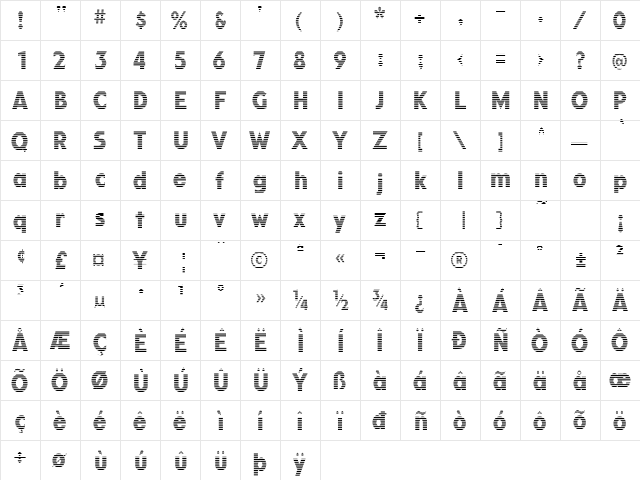
KolkmanGray Regular Font Preview
KolkmanGray Regular
Design Context for KolkmanGray Typeface
KolkmanGray offers clean, dependable letterforms without strong stylistic allegiance, making it a practical choice for designers who need flexibility.
Pro Tip: Use KolkmanGray in both headline and body roles to test its range before committing to a single application.